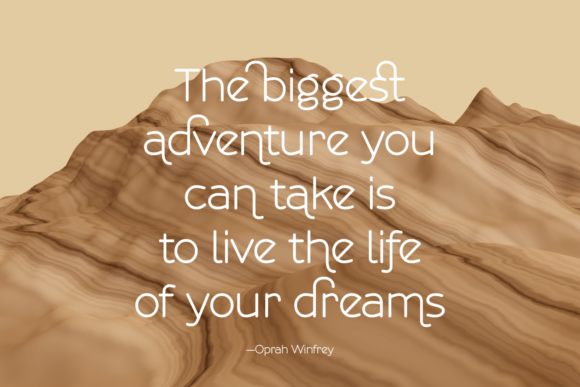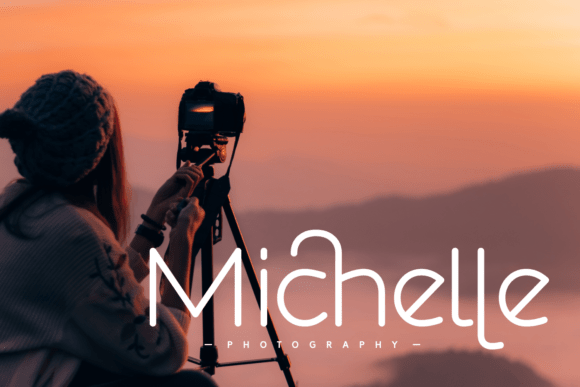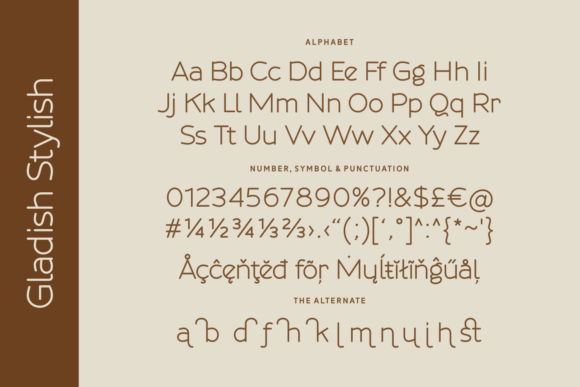
Introducing Gladish Stylish Font: Elevate Your Designs with a Modern Sans Serif Twist
As the seasons transition from the warmth of late summer to the cozy ambiance of early autumn, designers and crafters are on the lookout for fresh inspiration and innovative typography to elevate their projects. This is where the Gladish Stylish Font comes into play, a modern sans serif font that embodies the perfect blend of contemporary style and classic warmth.
A Promotional Image that Speaks Volumes
Imagine a promotional image that captures the essence of Gladish Stylish. The font takes center stage, showcasing its unique, handwritten-style ligatures and fluid character. The background, adorned with warm, earthy tones, complements the font’s modern sans serif design, creating a stylish aesthetic that resonates with the late summer and early autumn seasons. This visual synergy is not just pleasing to the eye; it also speaks to the creative soul of designers and crafters looking for that special typography to make their projects stand out.
The Essence of Gladish Stylish Font
Gladish Stylish is more than just a font; it’s a design statement. Its modern sans serif structure provides a clean and versatile canvas, suitable for a wide range of projects from branding and advertising to packaging and digital content. What sets Gladish Stylish apart, however, are its unique, handwritten-style ligatures. These ligatures add a touch of personality and warmth to the font, making it feel more approachable and engaging.
Why Choose Gladish Stylish?
• Versatility: The modern sans serif design of Gladish Stylish makes it incredibly versatile. It can be used in both digital and print projects, adapting seamlessly to various design needs.
• Unique Ligatures: The handwritten-style ligatures offer a unique flair that can add character and personality to any design.
• Warmth and Sophistication: The combination of clean lines and warm tones brings a sense of sophistication and coziness, perfect for projects aimed at a more mature or discerning audience.
• Seasonal Relevance: The earthy tones and stylish aesthetic of Gladish Stylish align beautifully with the themes of late summer and early autumn, making it particularly relevant for seasonal branding and marketing campaigns.
Applications of Gladish Stylish Font
The applications of Gladish Stylish are as varied as the designs it can create. Here are a few ideas to get you started:
• Branding and Logotypes: Use Gladish Stylish to create memorable brand identities that stand out with a modern yet warm aesthetic.
• Digital Content: Enhance your website, blog, or social media posts with a font that communicates both style and approachability.
• Packaging: Add a touch of elegance and modernity to your product packaging, making it more appealing to potential customers.
• Advertising: Create compelling ad campaigns with a font that captures attention and conveys your message with clarity and style.
Gladish Stylish Font offers a refreshing take on modern sans serif typography, combining the best of both worlds with its clean design and unique ligatures. Whether you’re a designer looking for a versatile font to elevate your projects or a crafter seeking inspiration for your next creation, Gladish Stylish is sure to meet your needs. Embrace the warmth and sophistication it brings to your designs, and let it be the perfect companion for your late summer and early autumn projects.
Discover the creative possibilities with Gladish Stylish Font today, and take your designs to new heights of style and elegance.